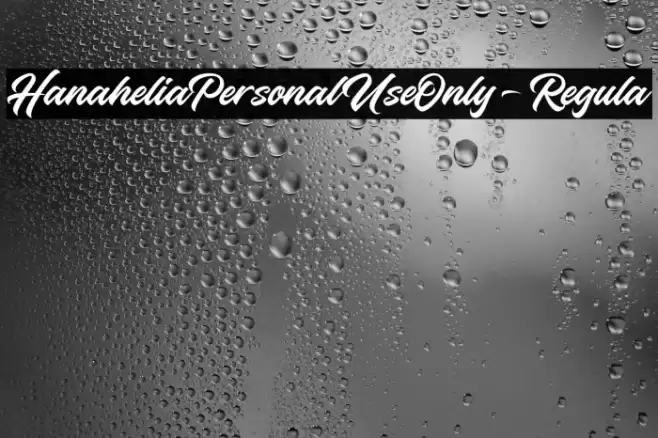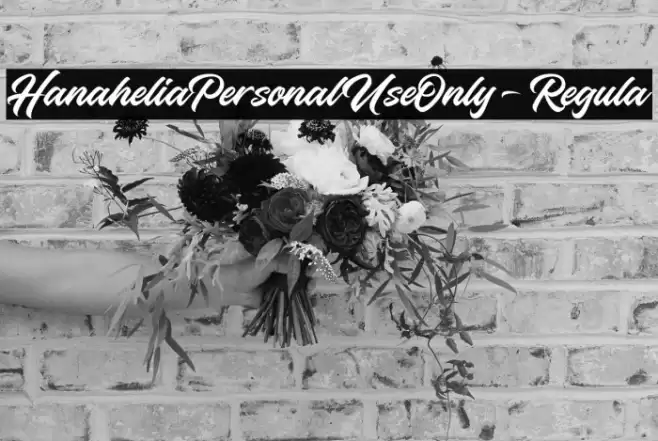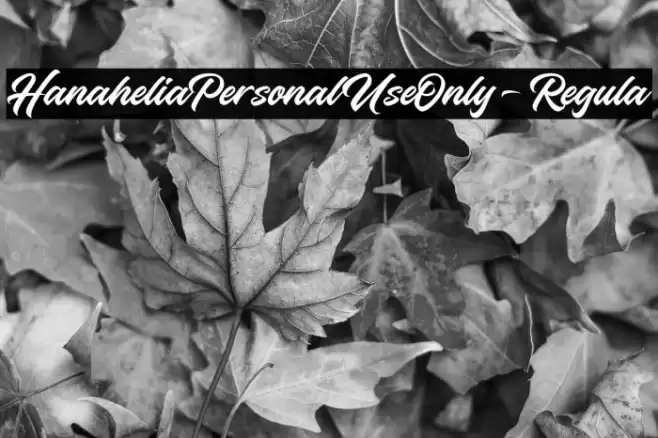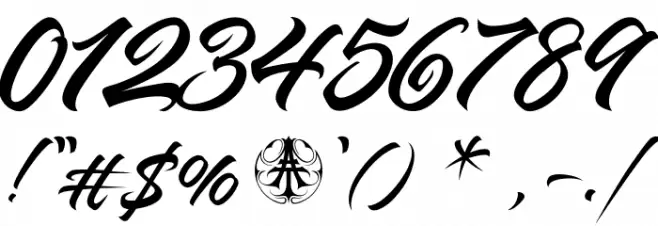
HanaheliaPersonalUseOnly-Regula Font
HanaheliaPersonalUseOnly-Regula Description
This font features a flowing, cursive style with elegant, sweeping strokes that give it a sense of movement and grace. The uppercase letters are bold and dramatic, with intricate loops and flourishes that add a touch of sophistication. The lowercase letters maintain the same fluidity, with a slightly more understated elegance. The numerals are consistent with the overall style, featuring similar curves and embellishments. Special characters are designed with the same attention to detail, making them a seamless part of the font family. This font is perfect for projects that require a touch of elegance and personality.
A flowing, cursive font with elegant, sweeping strokes and intricate flourishes from Regular fonts.
- Proposed Projects: Ideal for wedding invitations, luxury branding, elegant signage, and artistic projects.
- Use Case: Logos, Headlines, Invitations